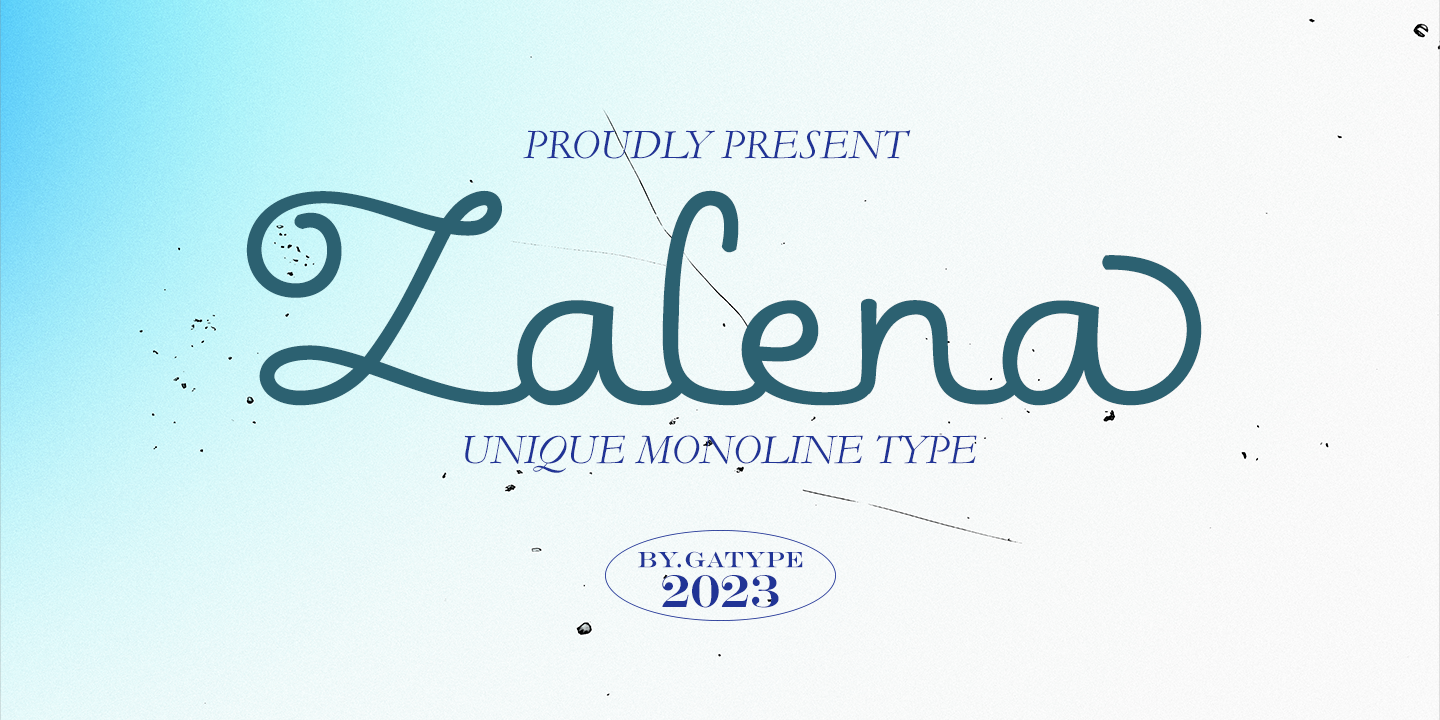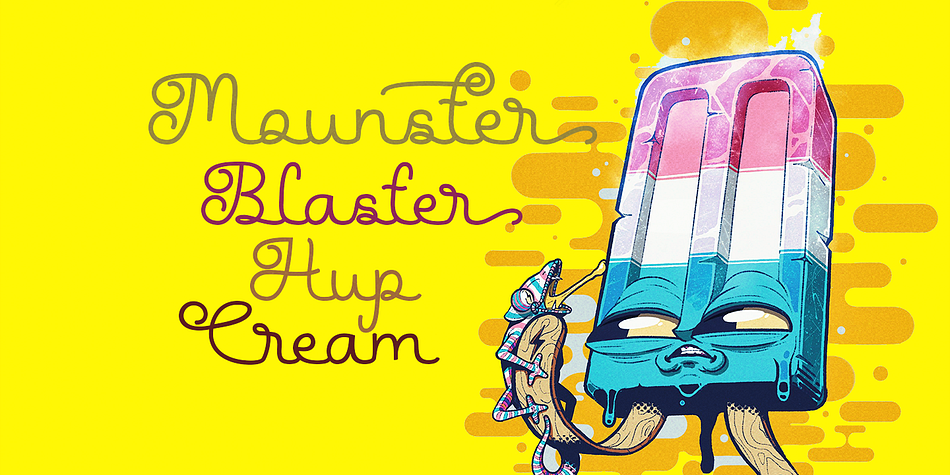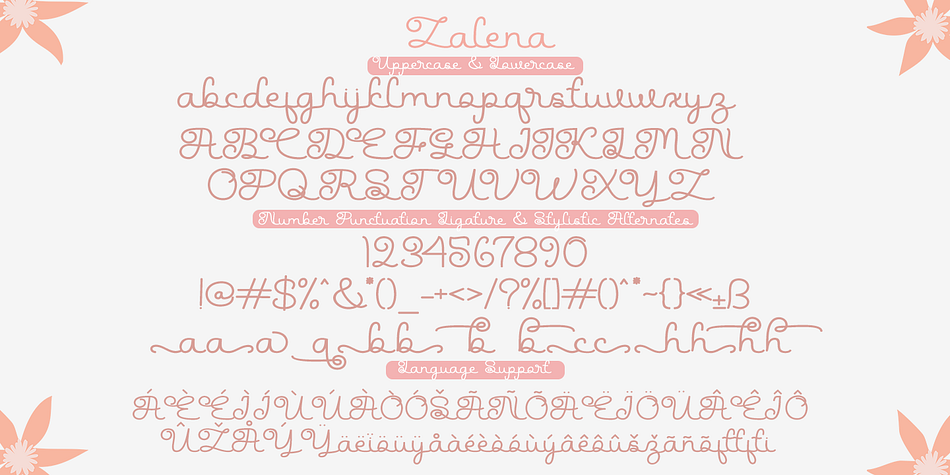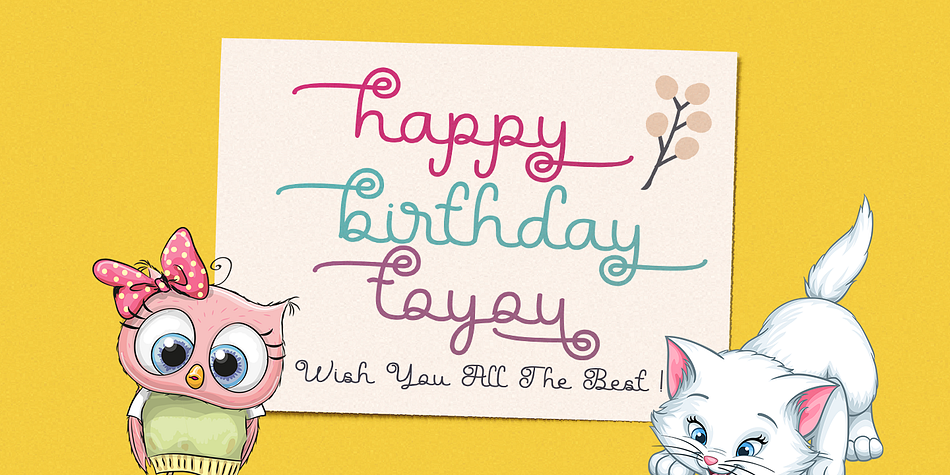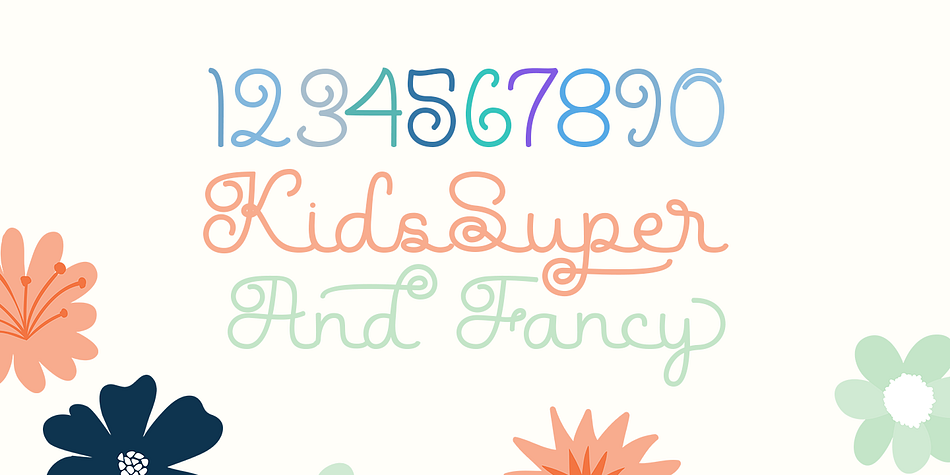
Zalena
Zalena is a script font family published by Gatype.
Hello my name is Zalena font, our new and fun font collection. Combining hand drawn style with a modern twist. Zalena comes with a ligature alternative that you can use to give your projects more options. Perfect for logos, notes, posters, t-shirts, stickers, posters, mugs, labels, etc.